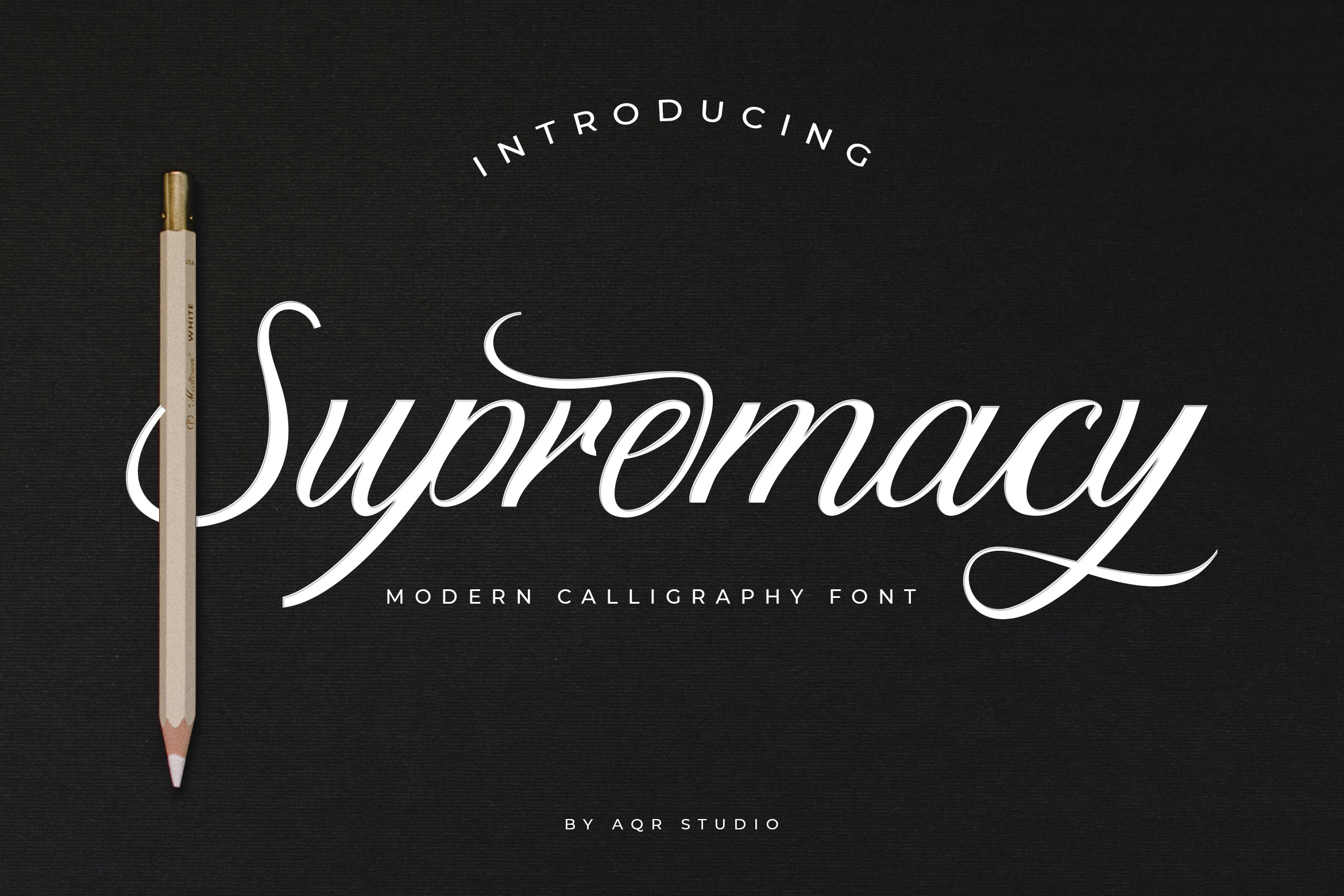
Supremacy Script Font
Supremacy Script Font that contain lowercase, uppercase, symbol, and also support multi language. There’s a lot ligatures in this font. Supremacy Script Font also comes with ligatures, stylistic alternates and many more. this font suitable for fashion, branding, catalog and other design what you want.